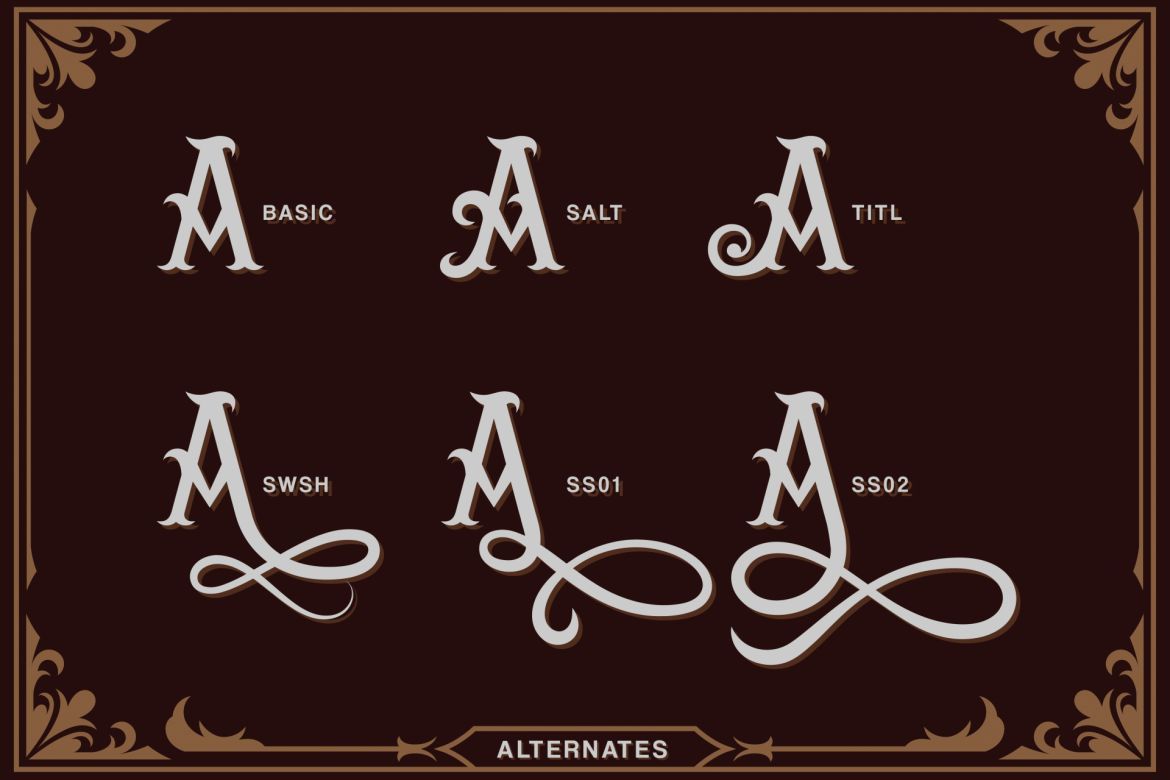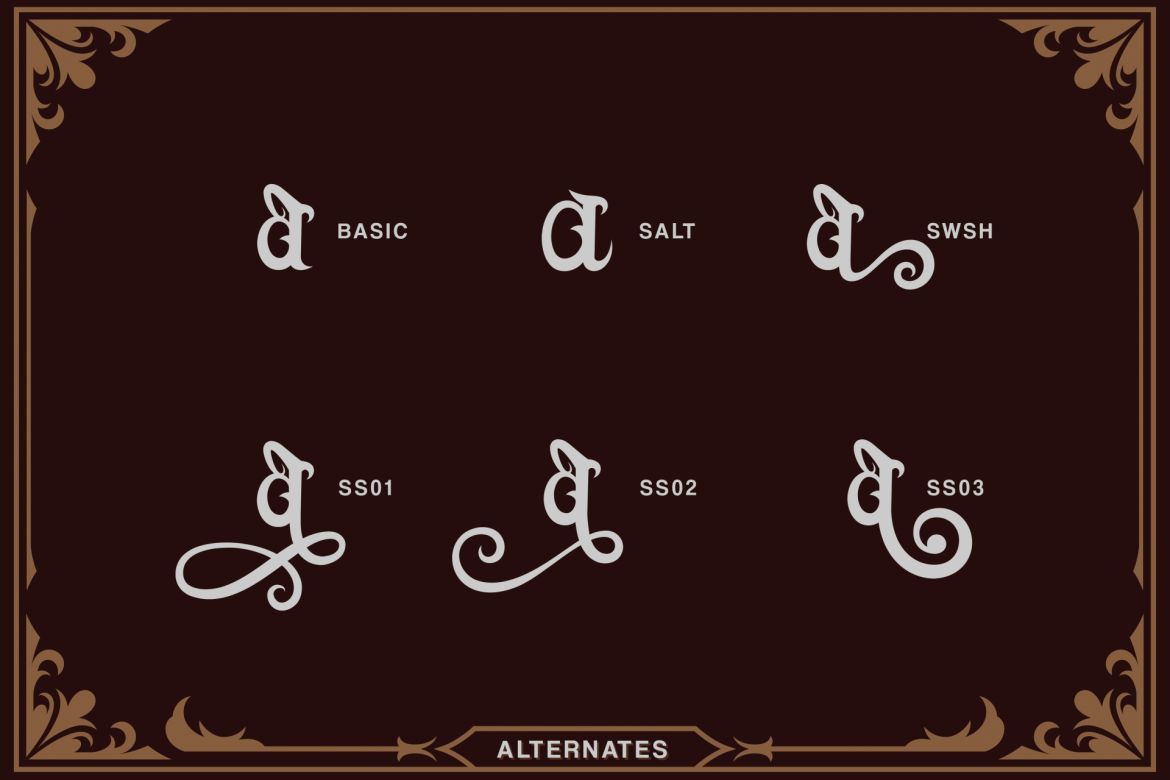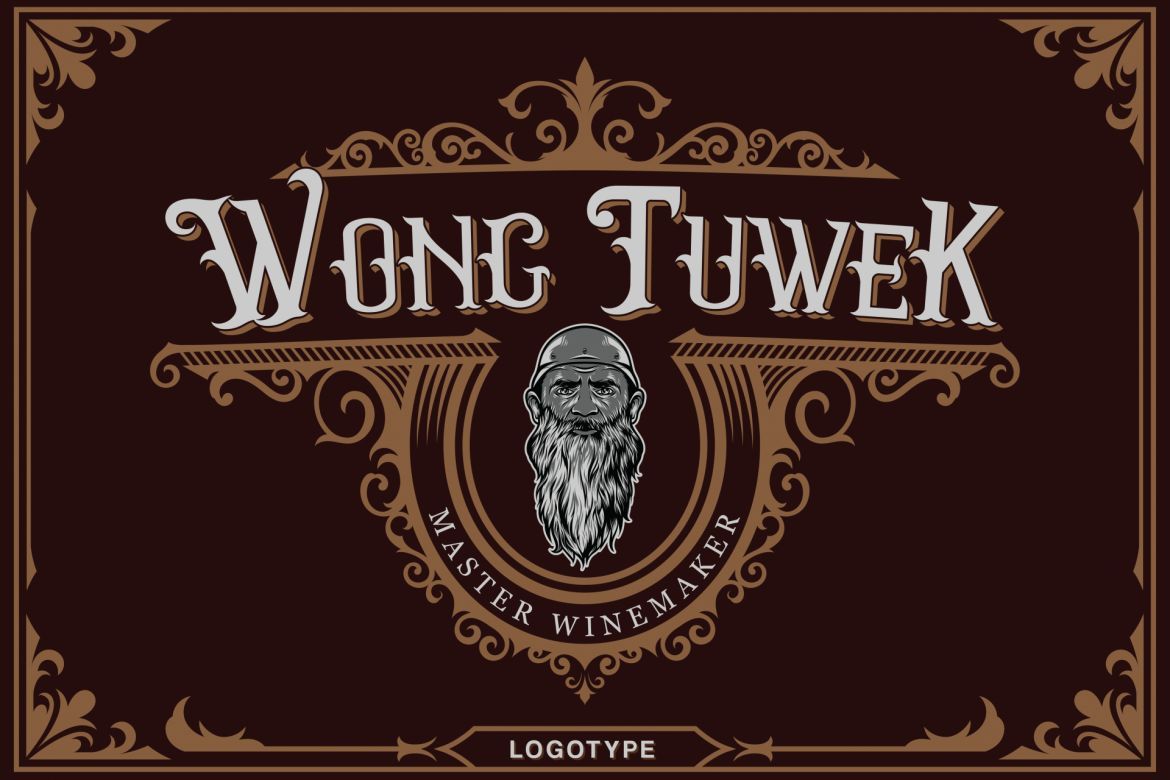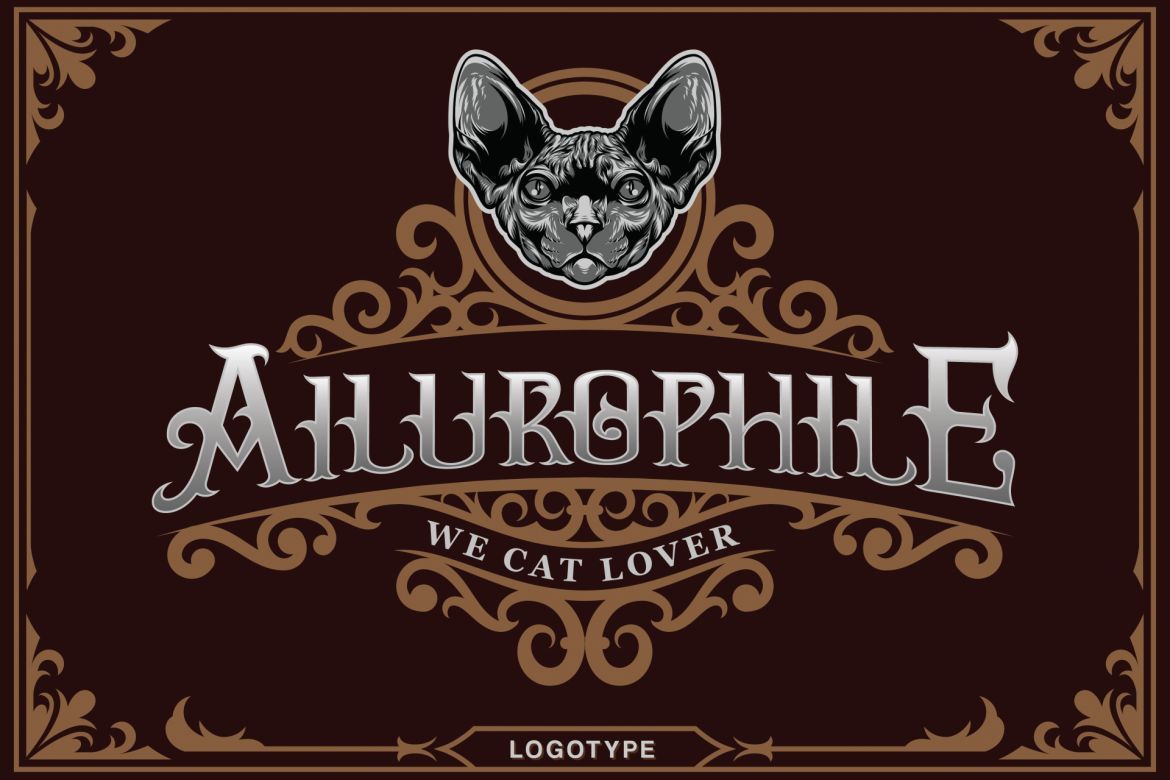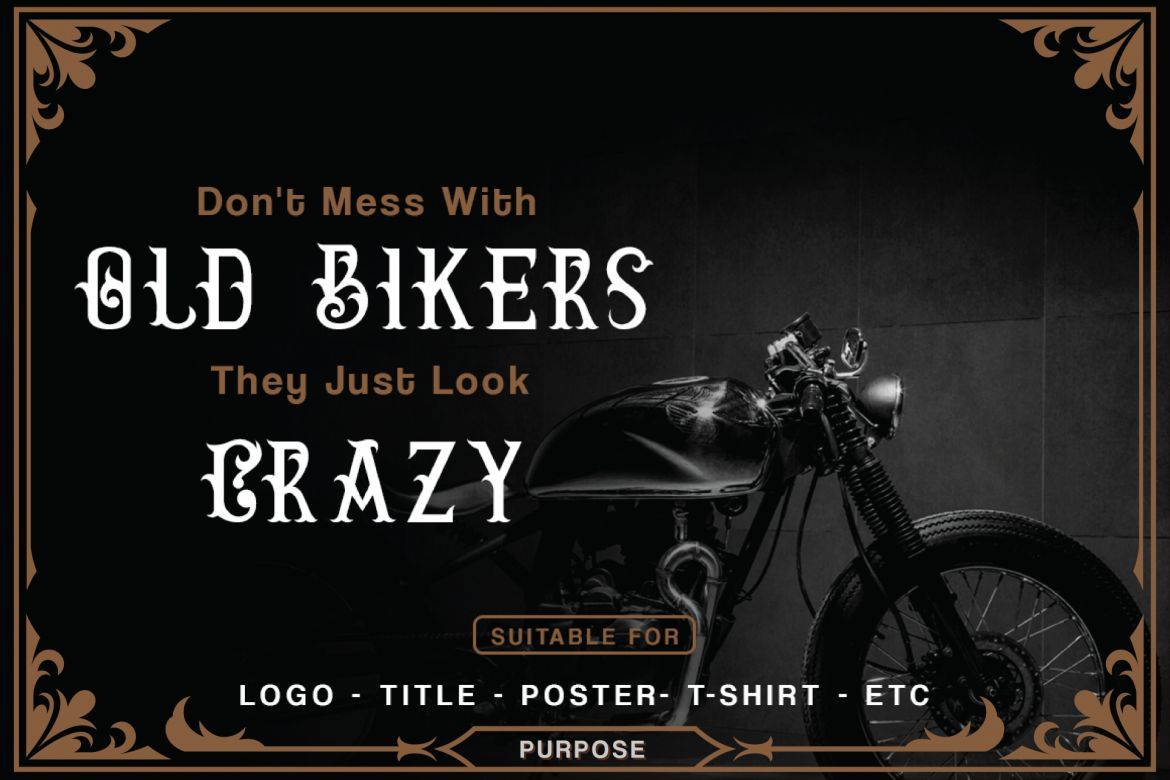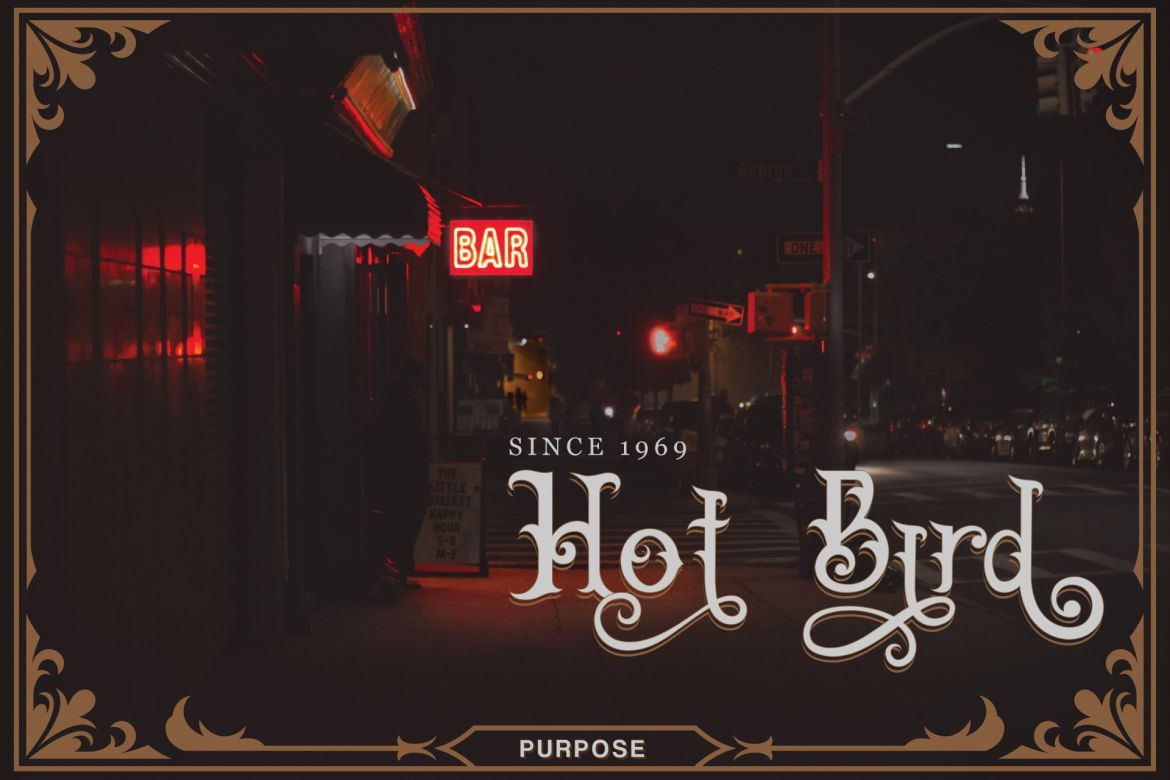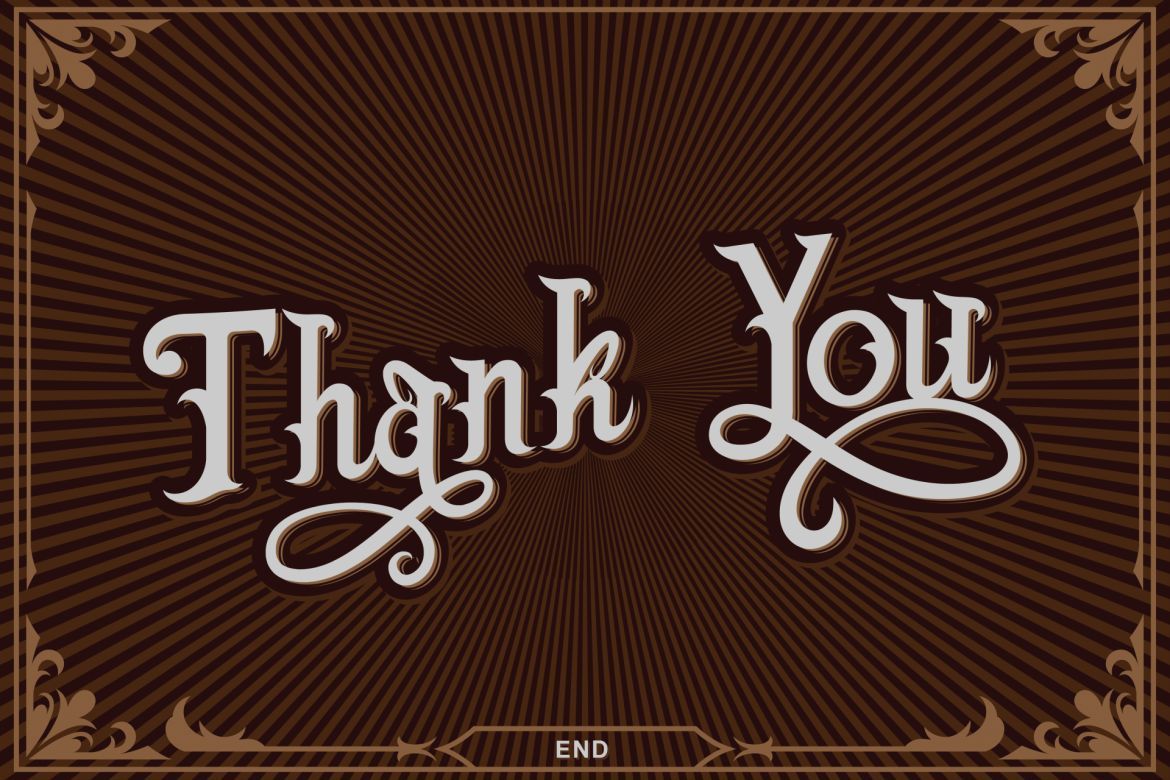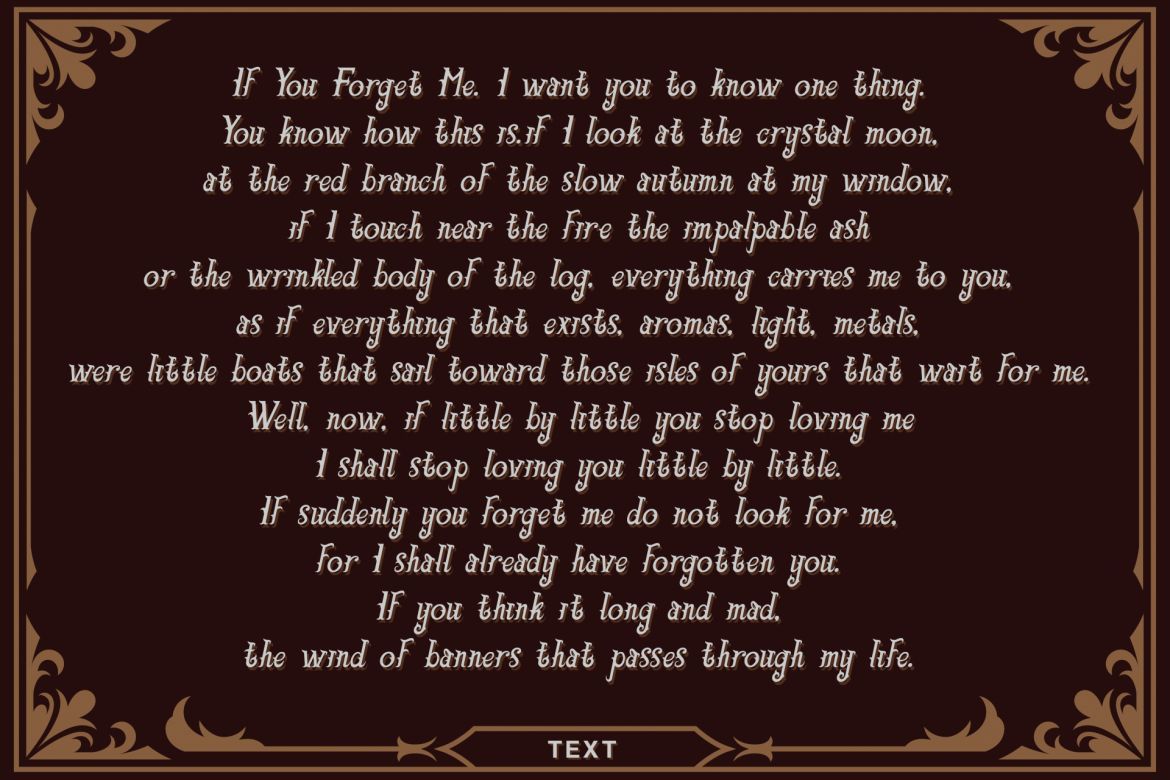
Brave Font
Brave is a stunning and fun vintage display font with a cool feel. It will turn any Western-themed design project into a true standout.This is suitable for your retro vintage design and this font is also suitable for posters, logos, t-shirts, etc
• brave fonts are equipped with opentype futures such as alternates
• stylistic sets
• swash & ligatures